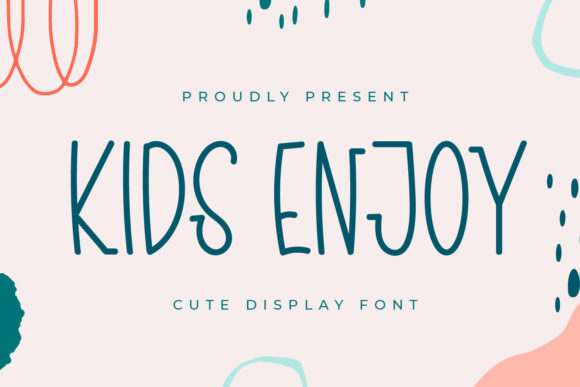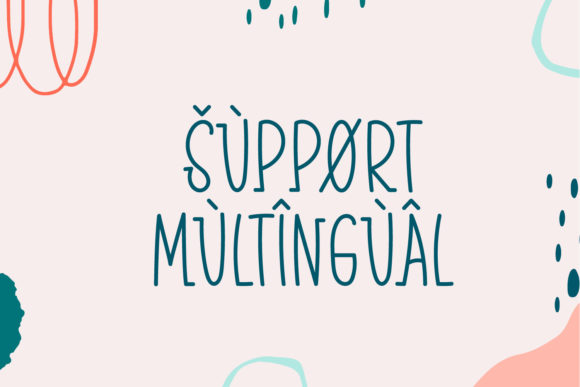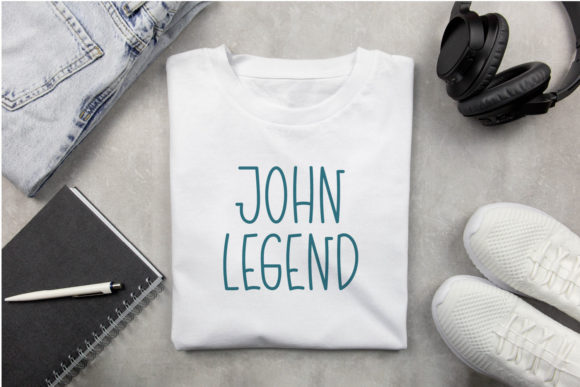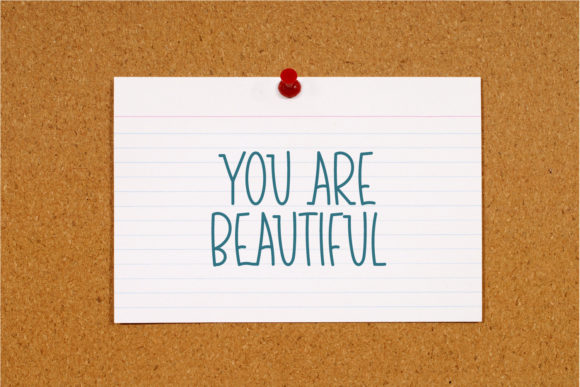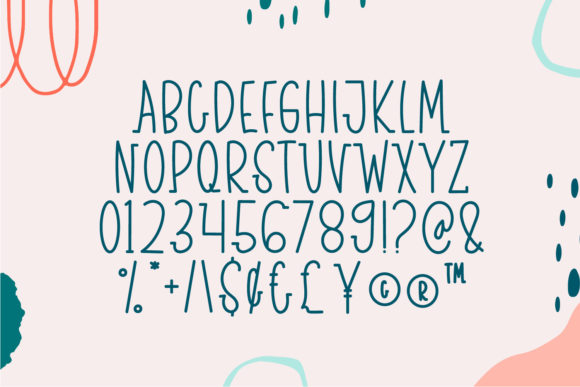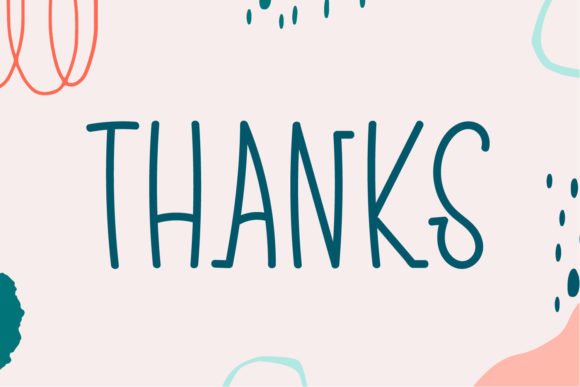
Kids Enjoy
Kids Enjoy: A Fun and Friendly Slab Serif Font
Kids Enjoy is a delightful slab serif font that combines fun, friendliness, and a cute aesthetic. This versatile typeface is an amazing choice for a wide range of projects, particularly those aimed at children or requiring a lovely touch.
Key Features of Kids Enjoy
• Fun Design: Features playful letterforms that add joy to designs.
• Friendly Aesthetic: Offers an approachable and welcoming look.
• Cute Appearance: Incorporates adorable elements perfect for child-oriented designs.
• Slab Serif Structure: Maintains the characteristic thick, rectangular serifs typical of slab serif fonts.
• Versatile Application: Suitable for a wide range of projects, especially those related to children.
Ideal Uses for Kids Enjoy
Kids Enjoy’s unique characteristics make it particularly well-suited for:
• Cartoon-related designs and illustrations
• Children’s books and educational materials
• Game designs for young audiences
• Playful branding for child-focused businesses
• Birthday party invitations and decorations
When incorporating Kids Enjoy into your designs, consider the following tips:
• Use for both headlines and short blocks of text to maximize its fun and friendly impact
• Experiment with bright colors to complement the font’s playful nature
• Take advantage of its versatility across various projects that require a lovely touch
Kids Enjoy is an excellent choice for designers looking to add a fun, friendly, and cute slab serif font to their typographic toolkit. Its ability to enhance child-oriented projects makes it stand out in the world of typography. Whether you’re working on logo designs for children’s brands, creating layouts for educational materials, or developing any project that requires a touch of playfulness, Kids Enjoy offers the perfect blend of fun and functionality.
Add Kids Enjoy to your creative projects and explore how it can bring joy and friendliness to your designs. From charming book covers to engaging game interfaces, this font provides the tools to create impactful and memorable typography that resonates with young audiences and the young at heart. It’s versatile enough to be used in various contexts, from vintage-inspired designs with a playful twist to cute and friendly layouts that need an extra touch of fun.
Whether you’re creating a magical and whimsical atmosphere for children’s content or aiming for a more thoughtful and educational mood in your designs, Kids Enjoy can adapt to your needs. Its flexibility allows it to work well in both playful, vintage-style projects and holiday-themed designs that require a child-friendly approach. For those looking to add a touch of nostalgia with a modern feel, this font can even complement vintage Christmas-inspired creations with a unique, kid-friendly twist.